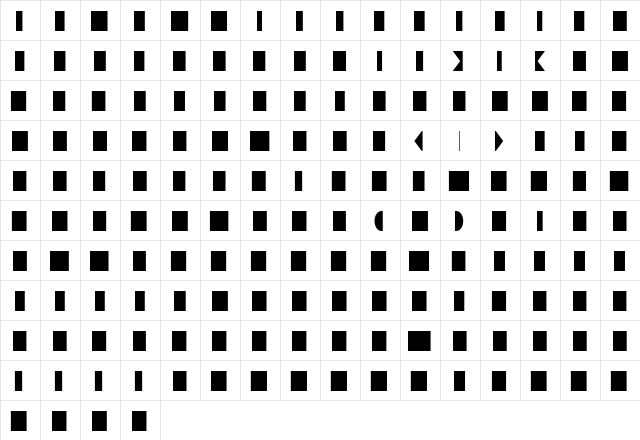
KG Laughter Lines Big Base Regular
| Foundry | Kimberly Geswein |
| Designer | Kimberly Geswein |
Design Context for KG Laughter Lines Big Base Typeface
KG Laughter Lines Big Base offers clean, dependable letterforms without strong stylistic allegiance, making it a practical choice for designers who need flexibility.